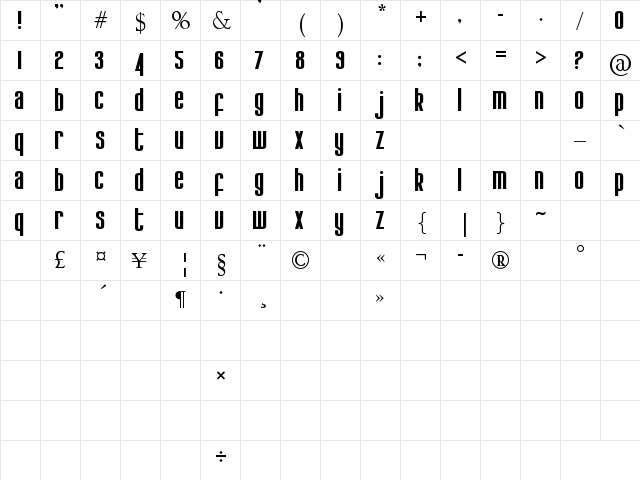
KdoBtz Regular
Design Context for KdoBtz Typeface
KdoBtz takes a measured approach to typography — its balanced proportions and neutral character make it a reliable workhorse for both digital and print work.